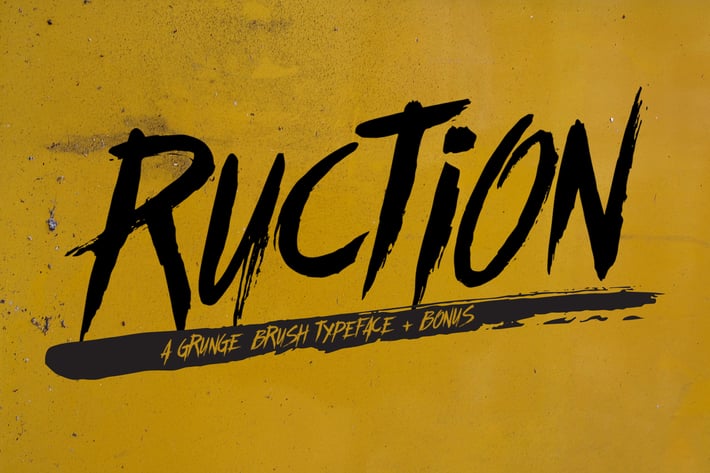
Ruction Typeface
Inspired by underground music cover album and some of graffiti typeface. It's really perfect for headline, cover album, t-shirt design and many more. But wait, not only the font, you will get graphic elements for free (preview no.3). Included on the package :